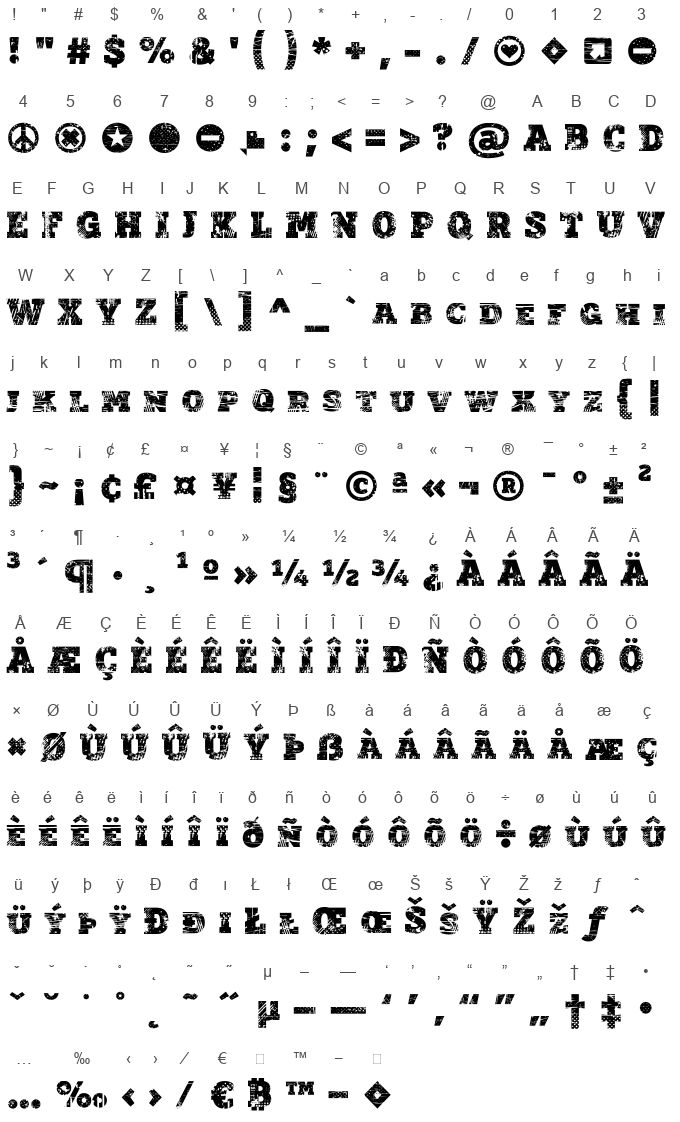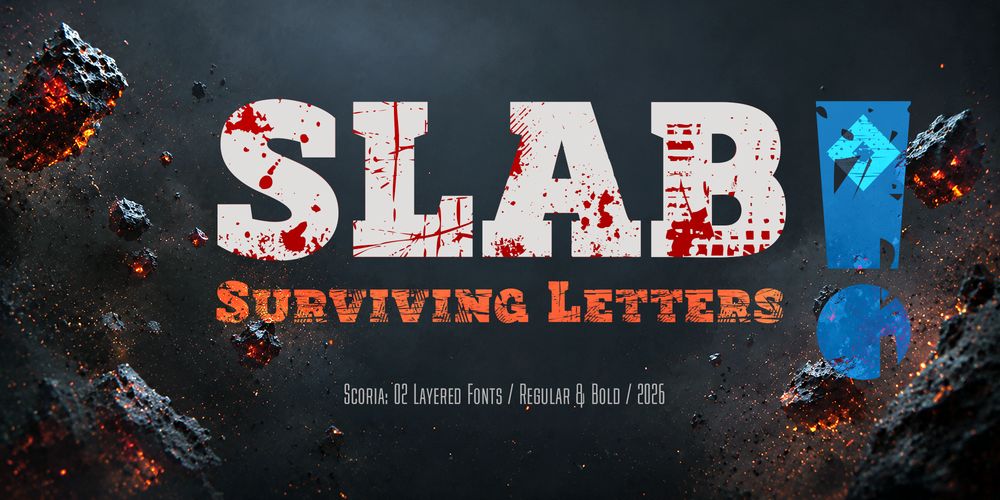
Scoria
Copyright (c) deFharo, 2026. All rights reserved.. Version 1.233;DFHA;Scoria-Regular;2026;FL842. Scoria Regular. Version 1.233. Scoria-Regular. Scoria is a trademark of Fernando Haro. deFharo. Fernando Haro. Scoria was born as a typographic relic rescued from a devastated landscape of a torn world. Its presence is aggressive, heavy, and profoundly expressive, like a fragment of industrial architecture surviving a catastrophe. It screams from the depths of its broken and eroded texture. Each letter seems to carry scars, cracks, and memory, in a declaration of typographic rebellion that adapts to the most intense and urban contexts, a symbol of resistance amidst chaos. One of Scoria's most distinctive features is its layered font system. I designed the Regular and Bold versions as inseparable companions to work together in overlapping, allowing for the creation of purely typographic headlines in two or more colors with enormous visual impact.. https://defharo.com/fonts/scoria/. https://defharo.com. Personal use only (FFP)! Leer / Read: https://defharo.com/product-usage-agreement-ffp/ Commercial license. READ: https://defharo.com/terms-and-conditions-commercial-fonts/ Please visit www.defharo.com to buy a commercial license.